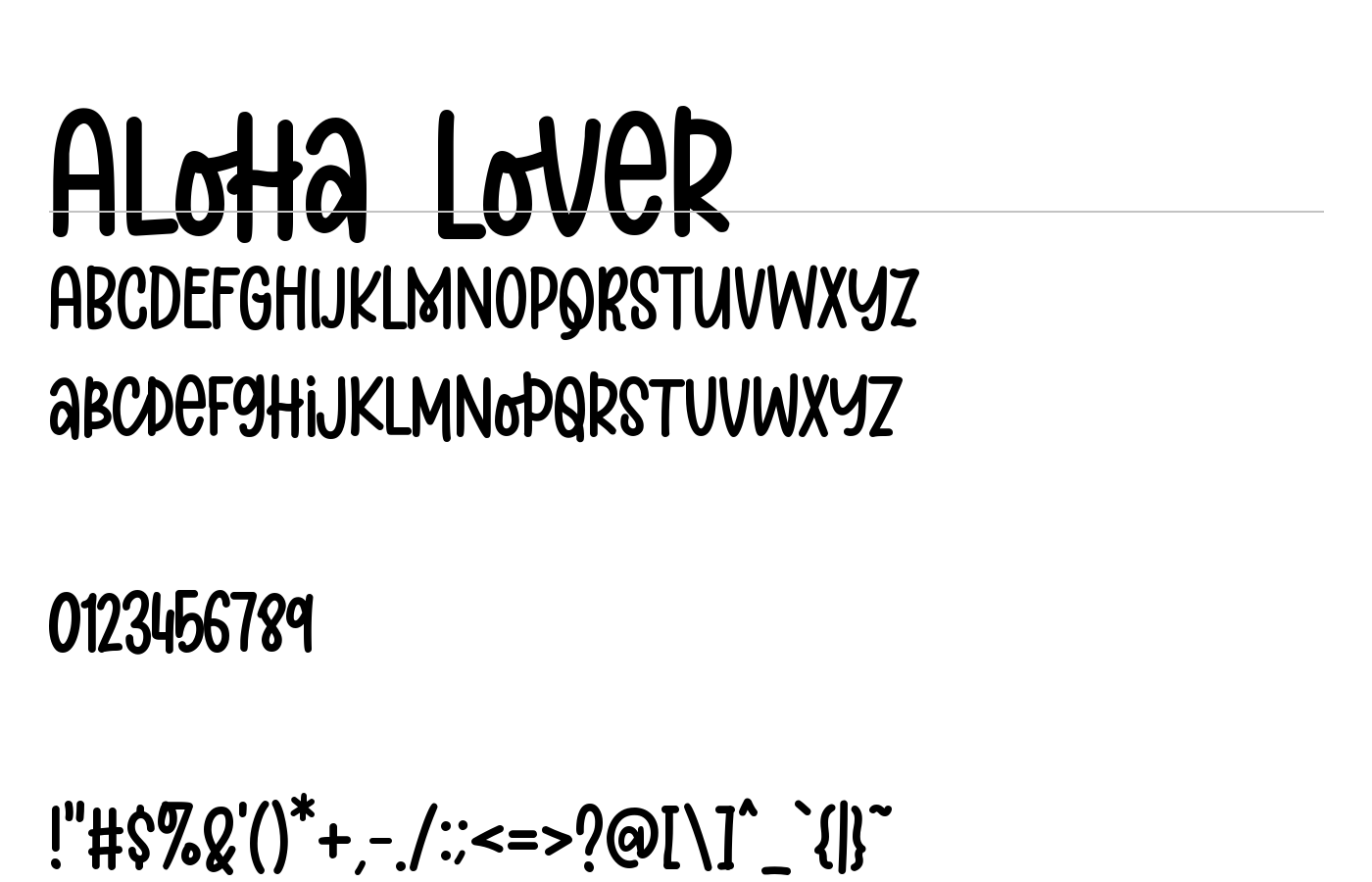
Aloha Lover is a playful, hand-drawn sans serif font with a friendly and casual vibe. Its rounded strokes and quirky letterforms, including distinctive loops and curls, give it a charming, approachable personality perfect for creative and informal designs. This font works well for fun branding, children’s projects, signage, and any context where a warm and lively feel is desired.
Aloha Lover Font
About Aloha Lover Font
| Font family | Aloha Lover Font |
| Designer | Dimas Prasetyo |
| Trademark | Dm Letter Studio Bandung - Indonesia |